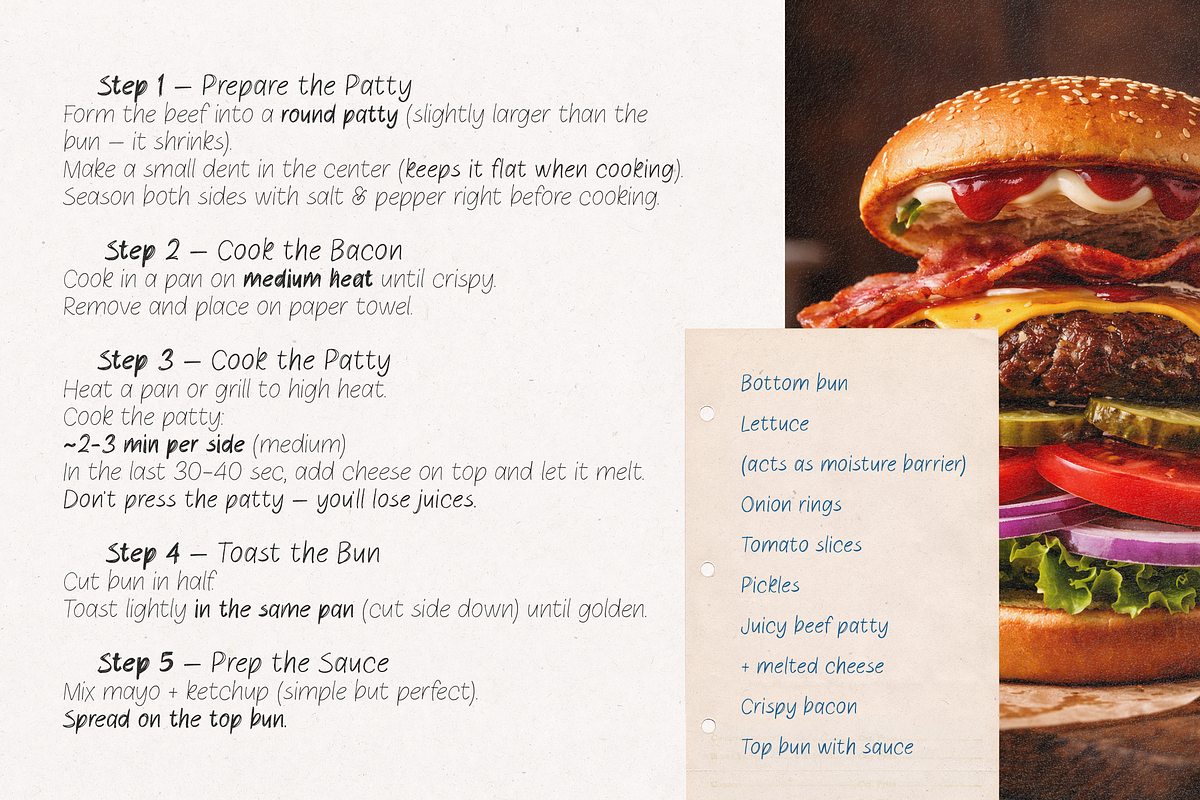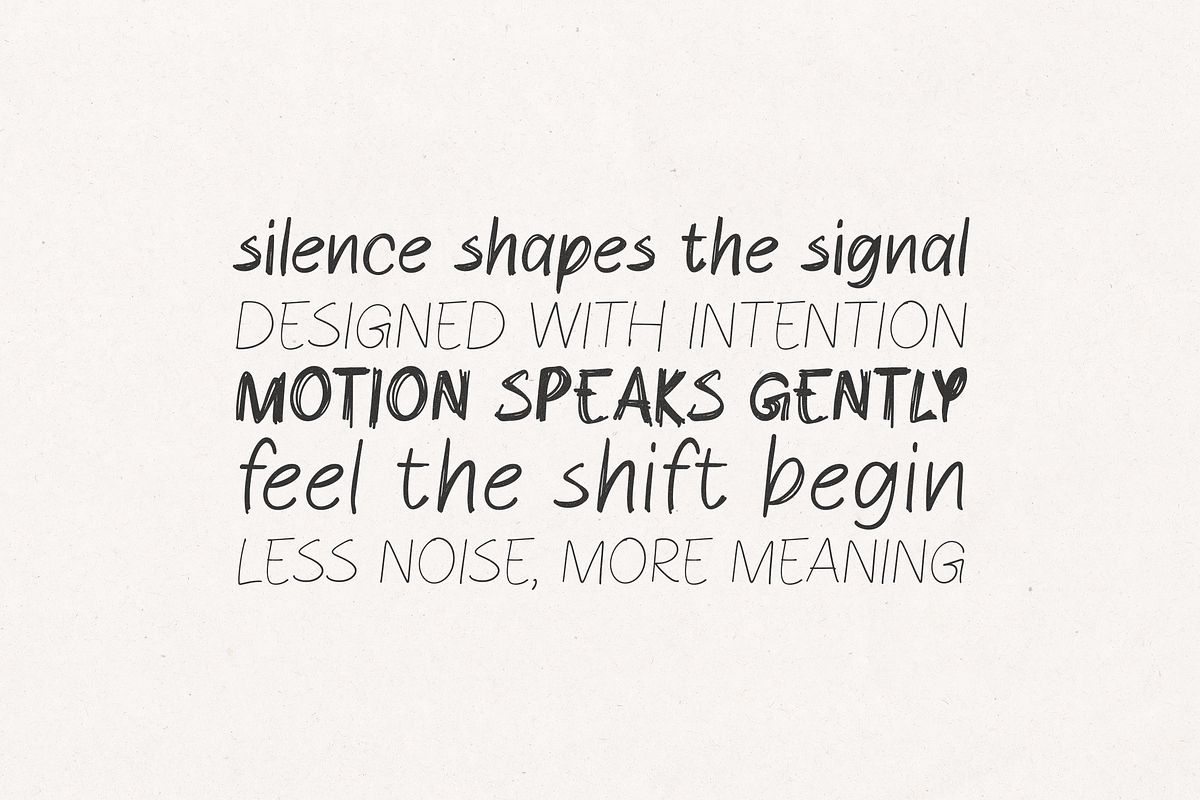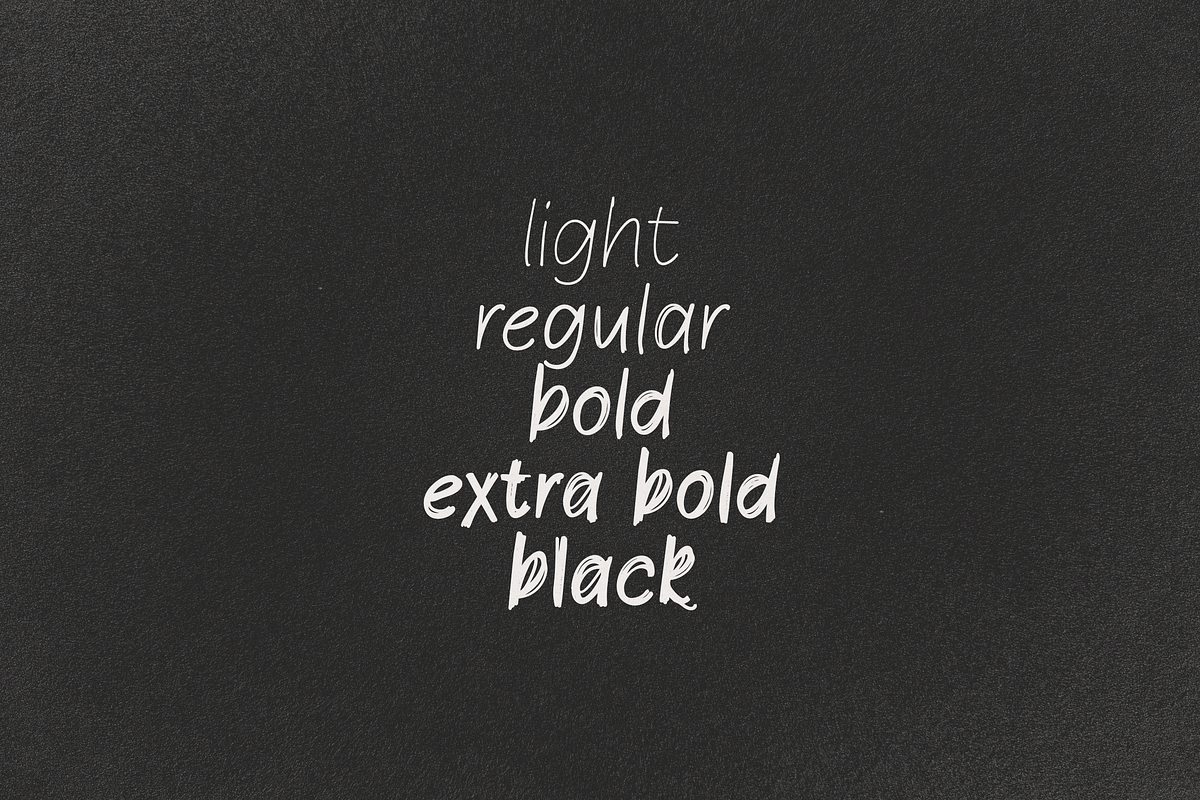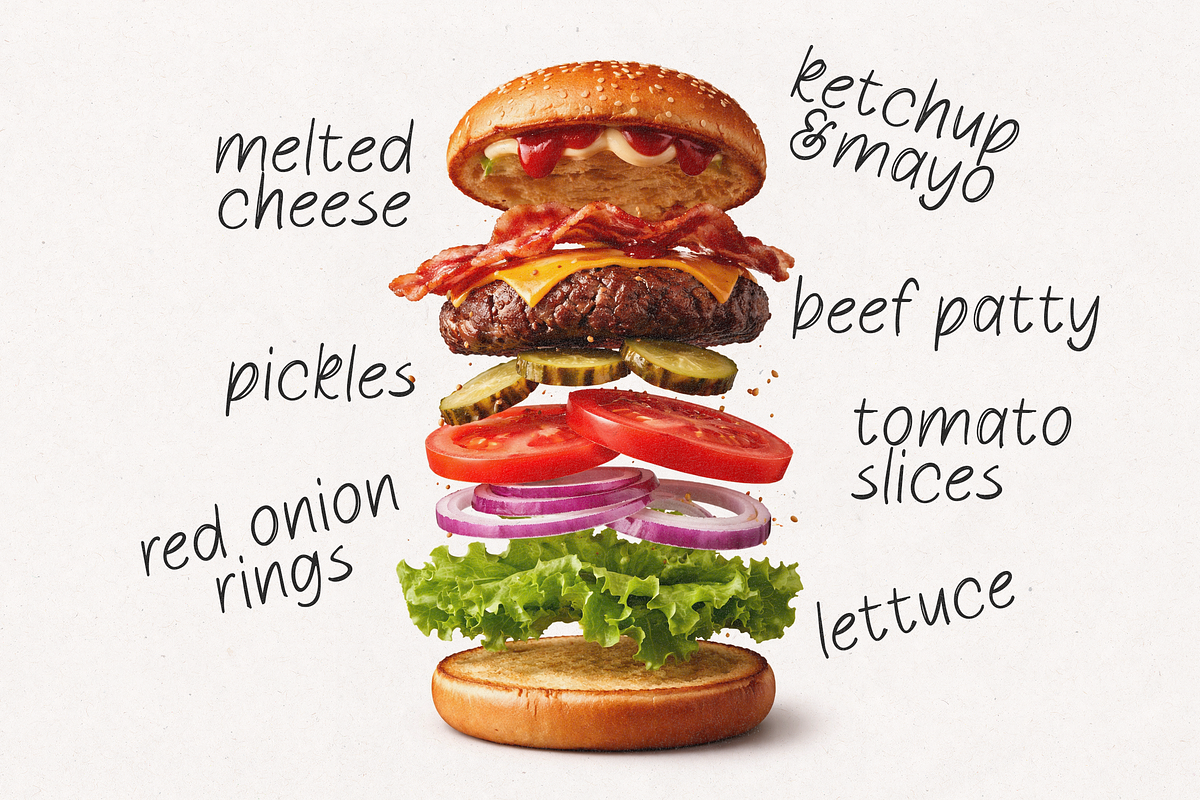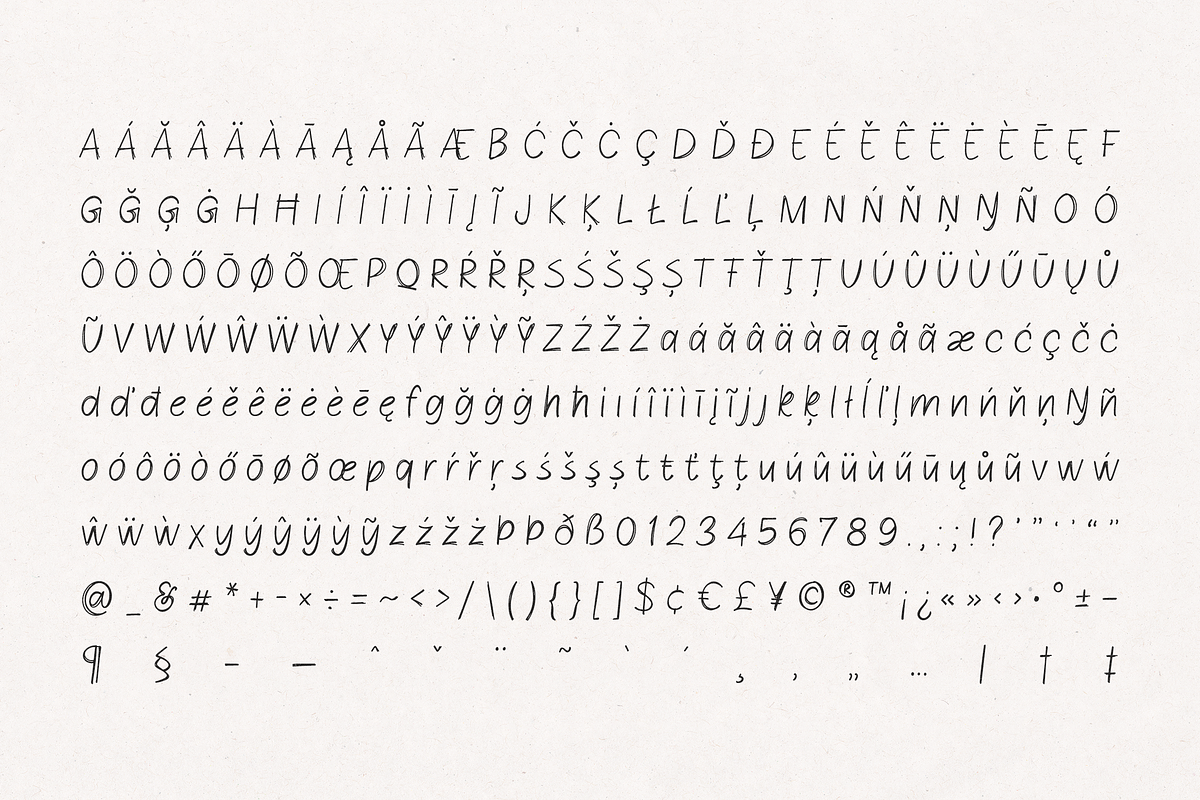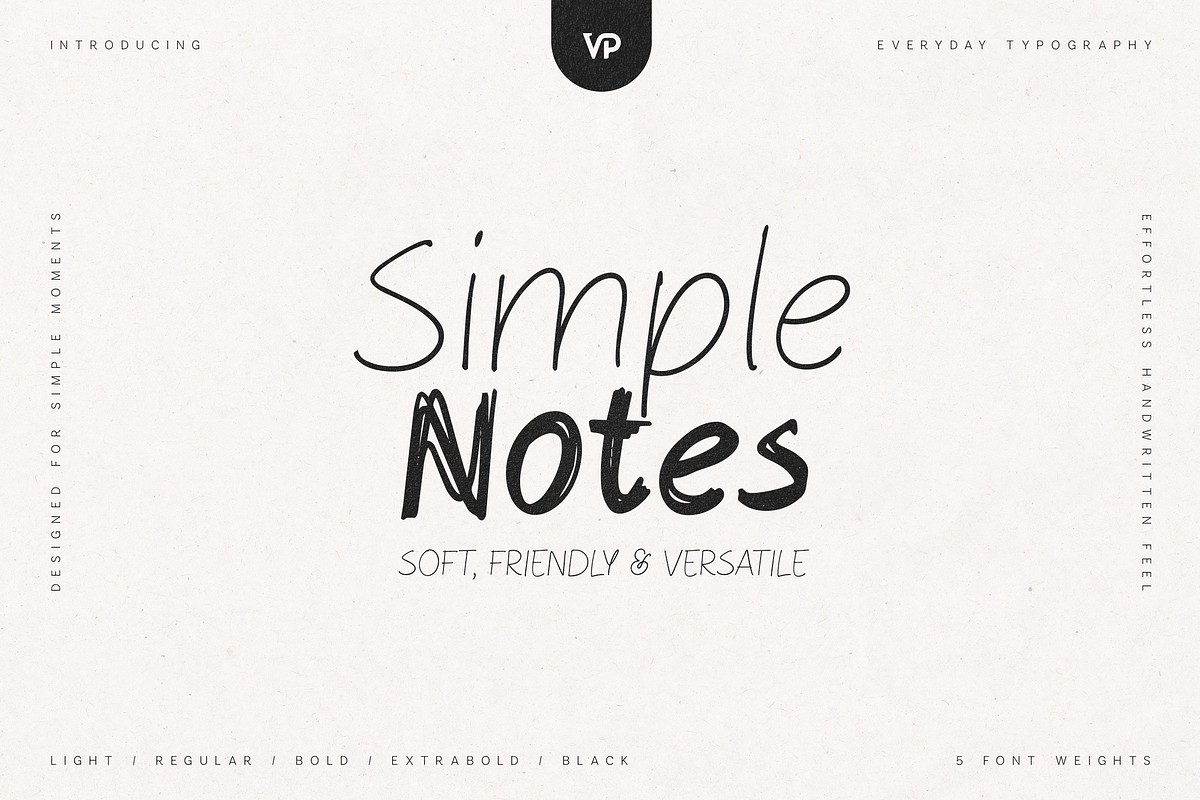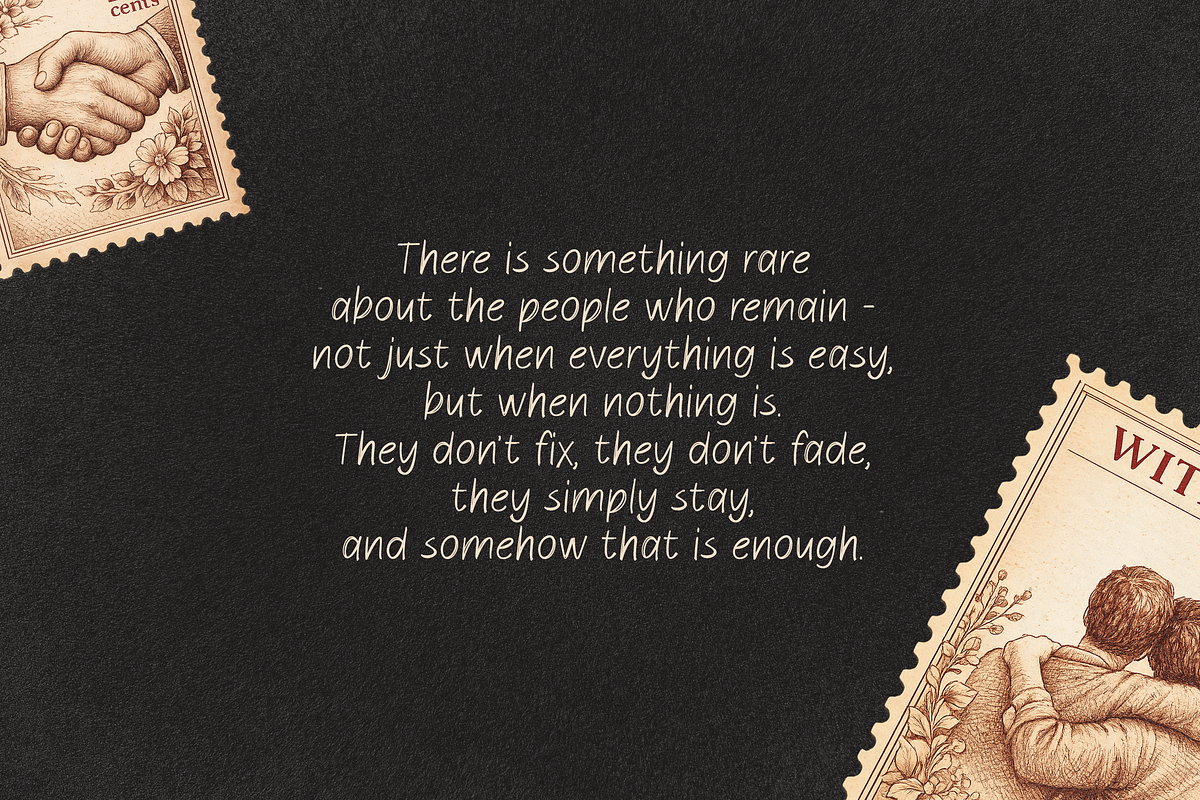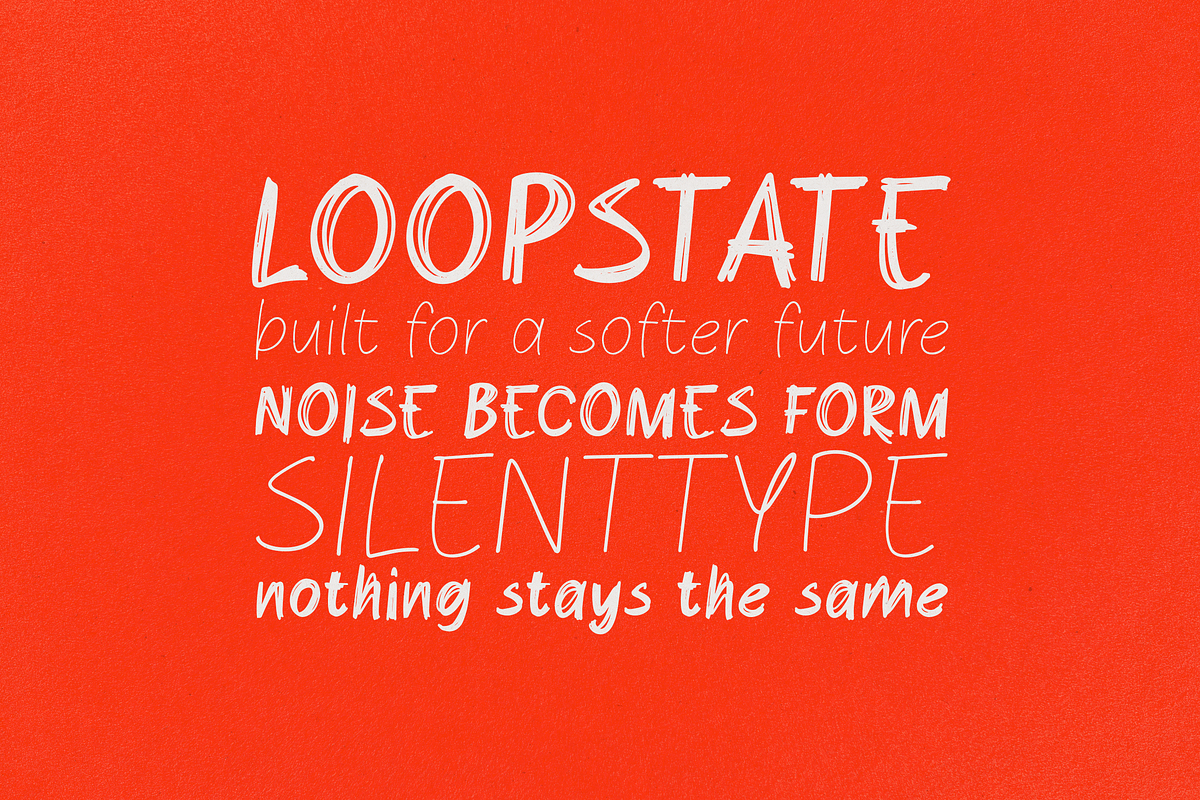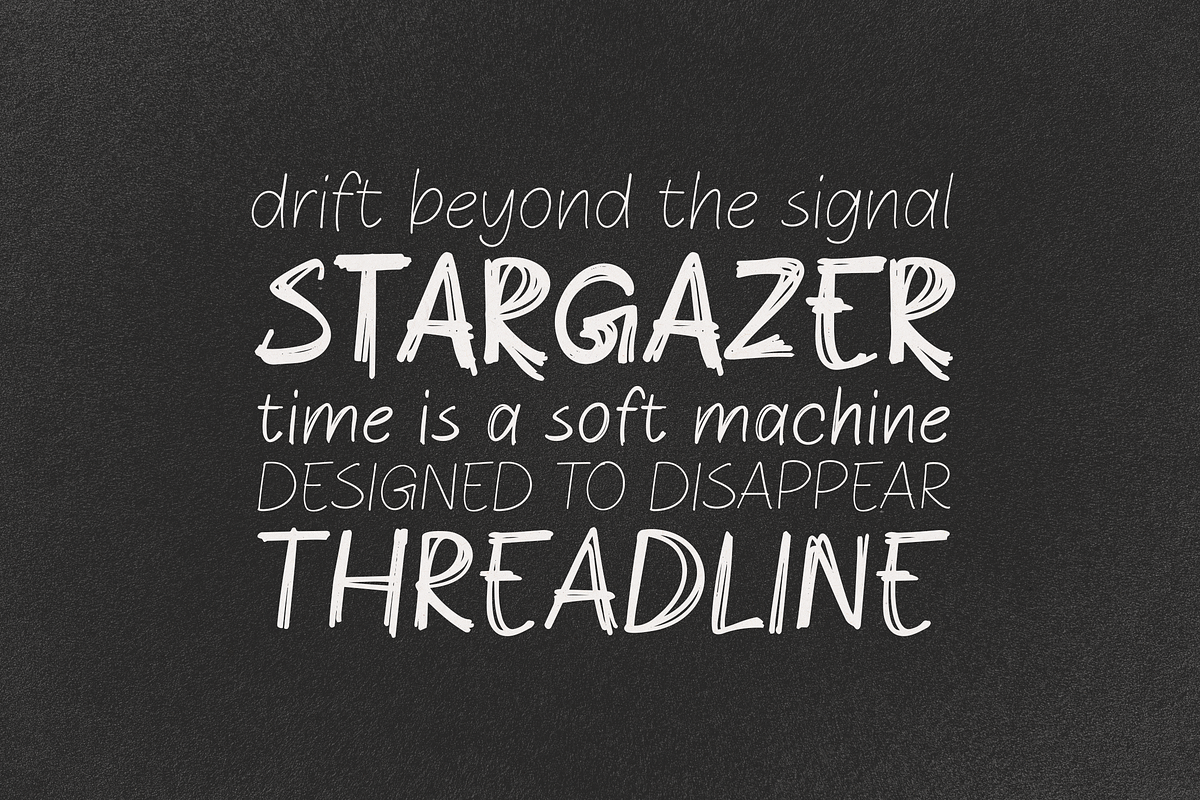
Simple Notes – Soft Handwritten Font
Simple Notes is a soft, friendly handwritten font designed to bring a natural and effortless feel to your designs. With its clean strokes and organic imperfections, it captures the charm of real handwriting while remaining highly legible and versatile.
Perfect for both casual and professional use, Simple Notes works beautifully across a wide range of creative projects - from branding and packaging to social media, quotes, and lifestyle designs.
✦ Why You’ll Love It
- Natural handwritten style with a soft, human touch
- Clean and readable across all sizes
- Balanced between playful and professional
- Ideal for modern, minimal, and lifestyle aesthetics
✦ Font Features
- 5 Weights: Light, Regular, Bold, Extra Bold, Black
- Multilingual support (extended Latin characters)
- Smooth curves with authentic handwritten feel
✦ Perfect For
- Logo design & branding
- Packaging
- Social media posts & Instagram content
- Quotes, posters & editorial layouts
- Labels, menus & handwritten-style notes
- Canva & digital content creation
Simple Notes sits right between clean minimal sans and organic handwritten script, making it extremely flexible. The lighter weights feel elegant and airy, while the heavier weights add bold personality—perfect for mixing hierarchy in your designs.
Its slightly imperfect strokes create a warm, approachable tone that performs especially well in:
- lifestyle brands
- food & beverage visuals
- cozy / aesthetic content
- modern “soft minimal” branding
This typeface is designed to be highly usable and scalable, meaning buyers can use it across multiple projects - from logos to full brand systems - making it a strong long-term asset in any font library